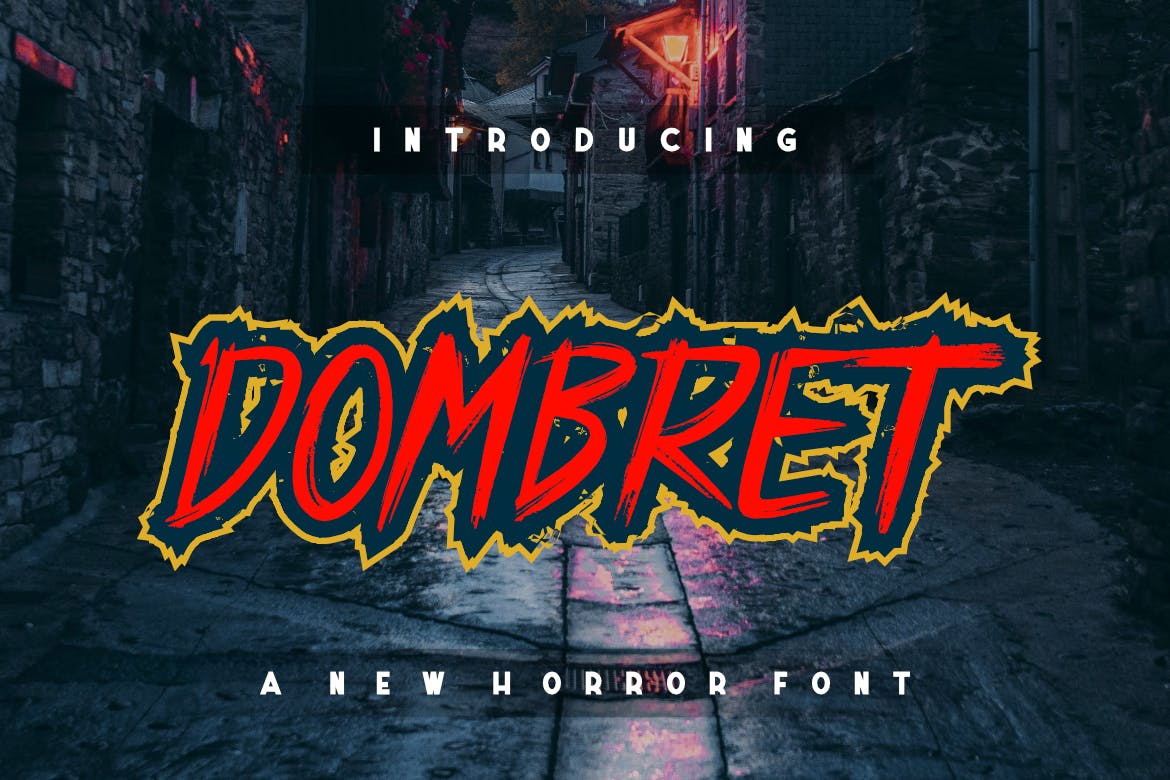
Dombret a New Horror Font
The Dombret a New Horror Font is perfect for horror movie titles, haunted house attractions, gothic band merchandise, dark fantasy book covers, Halloween event posters, spooky gaming interfaces, creepy social media graphics, and nightmare-themed branding.
What makes Dombret a New Horror Font so exciting is its innovative approach to horror typography that pushes the boundaries of fear-inducing design while maintaining exceptional readability and impact. This terrifying typeface features cutting-edge distortion techniques, menacing angular forms, and unsettling visual elements that create an immediate sense of dread and anticipation. The font's revolutionary design incorporates modern horror aesthetics with psychological triggers that tap directly into primal fears, making viewers feel genuinely unsettled. Its distinctive character combines contemporary horror sensibilities with timeless frightening elements, creating the perfect balance of innovation and terror that resonates with both classic horror fans and modern audiences seeking fresh scares.
The Dombret a New Horror Font family includes multiple spine-chilling variations designed to maximize fear factor across different horror applications. The collection typically features Regular, Bold, and Ultra-Distorted versions, each with unique terrifying characteristics like shadow effects, decay patterns, and supernatural distortions. Many versions include alternative characters with enhanced horror details, decorative elements featuring skulls and dark symbols, and comprehensive character sets that maintain the frightening atmosphere across all communications.
The font's remarkable versatility excels across all horror-themed mediums, from digital movie trailers to printed promotional materials. Its carefully engineered distortions maintain legibility while maximizing psychological impact, ensuring your terrifying message penetrates deep into viewers' consciousness and lingers long after they've looked away.
Professional designers in the horror entertainment industry rely on this groundbreaking font for their most frightening and innovative projects. Whether developing brand identities for next-generation horror productions, creating promotional materials for cutting-edge haunted attractions, or designing merchandise for modern dark entertainment brands, this font delivers the perfect combination of fresh terror and professional excellence.